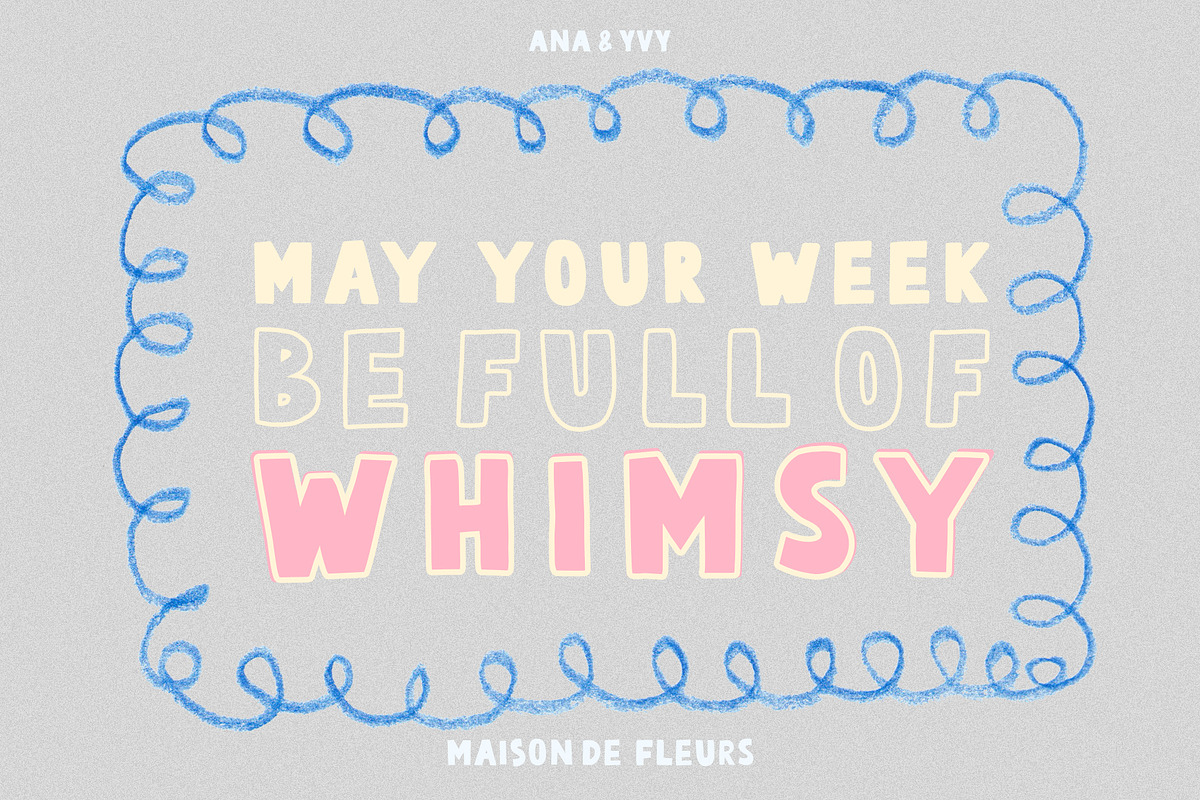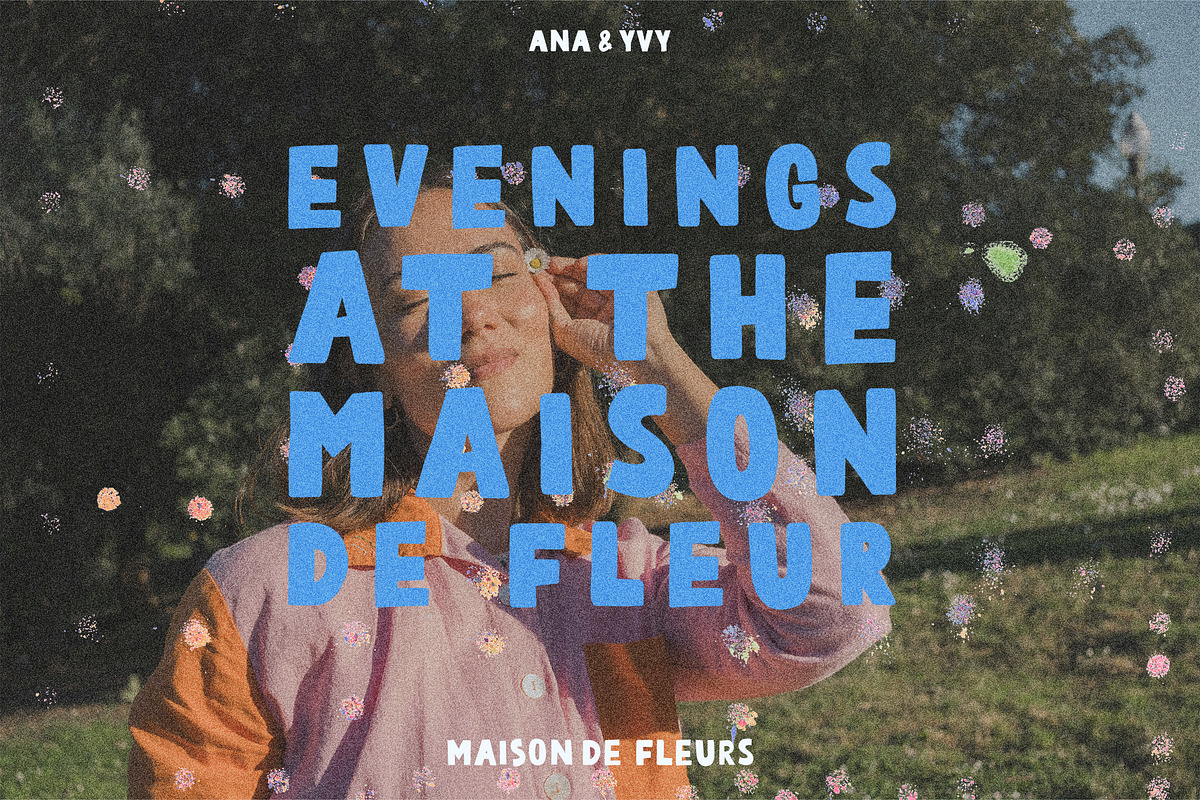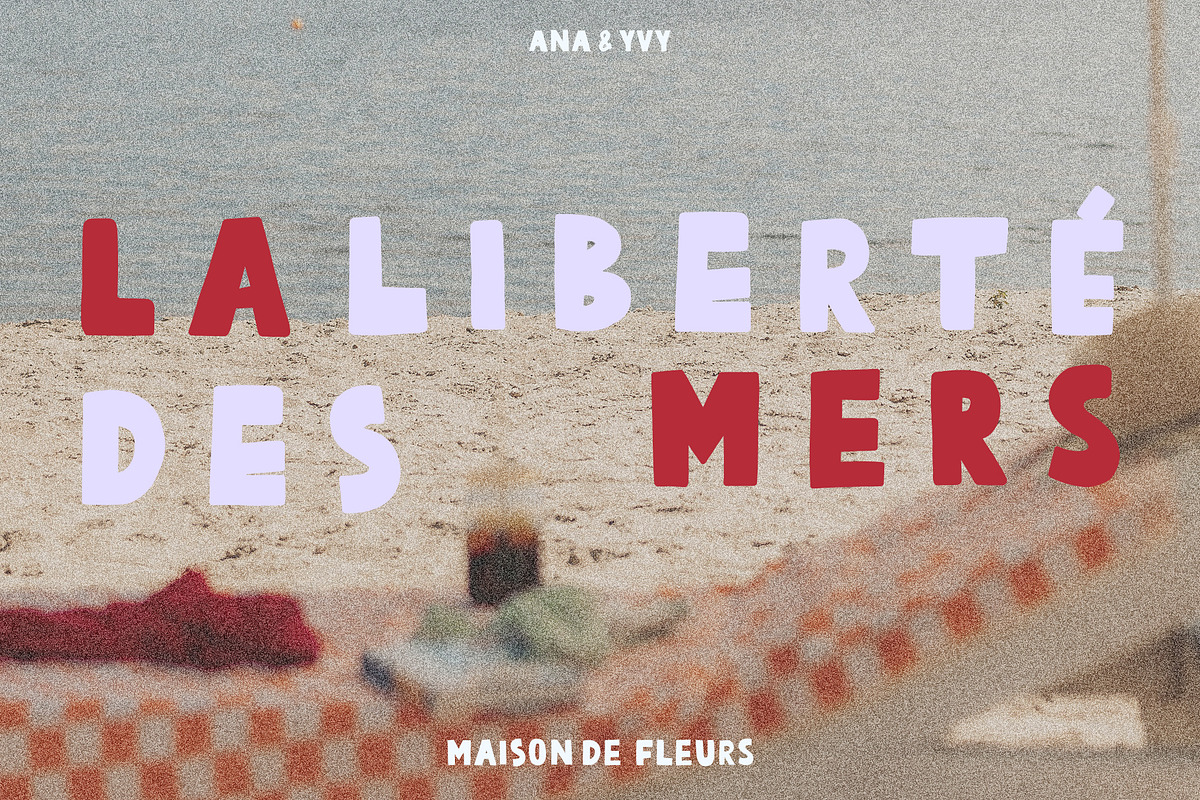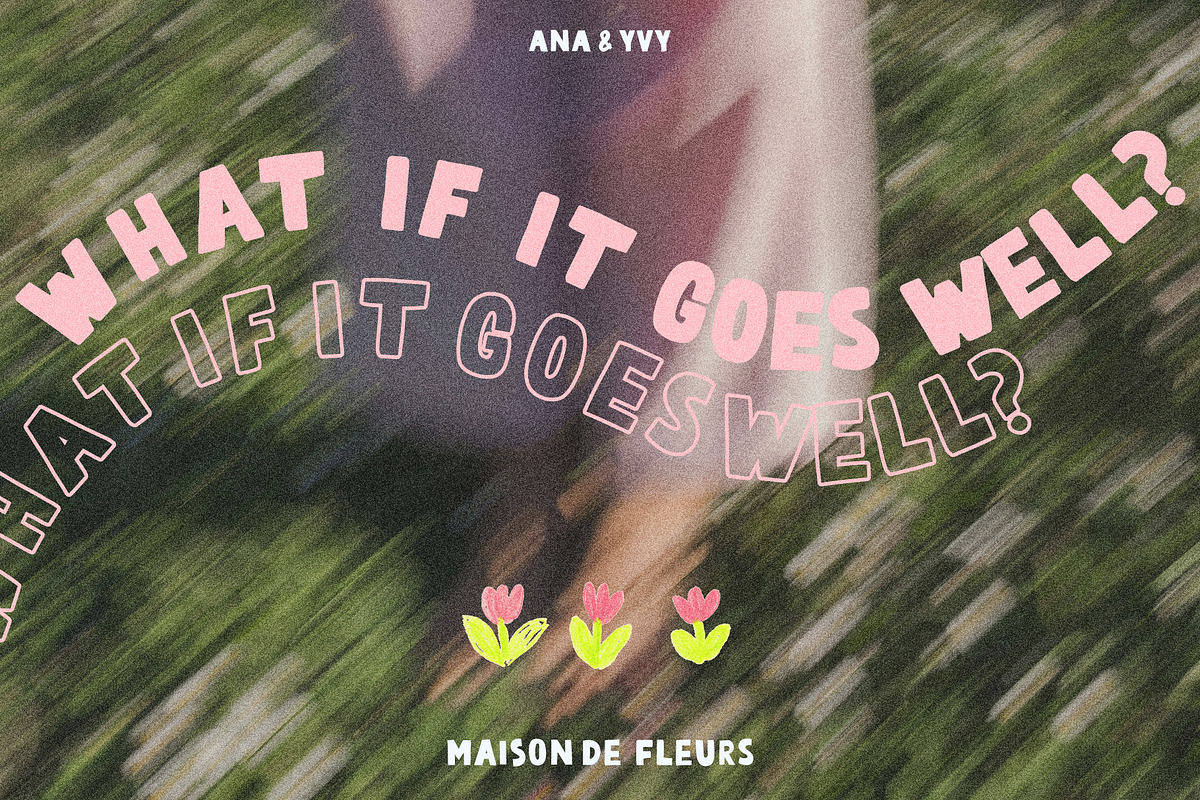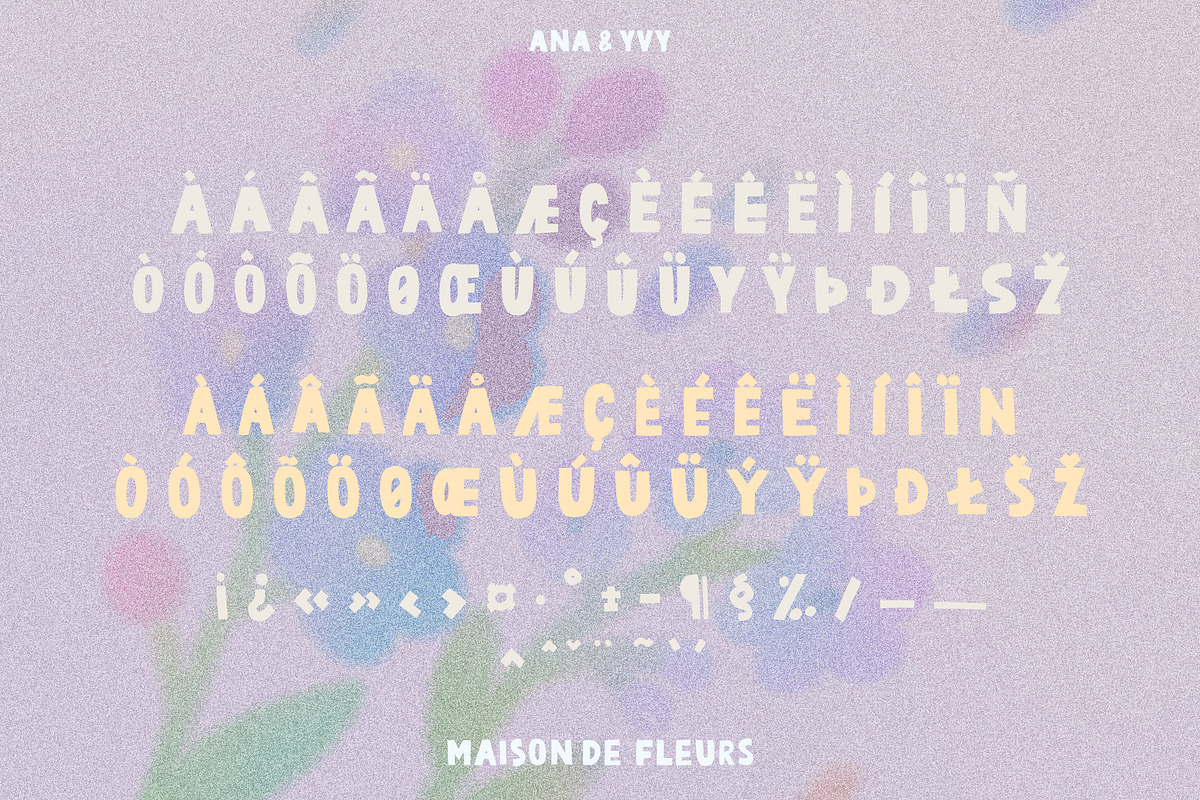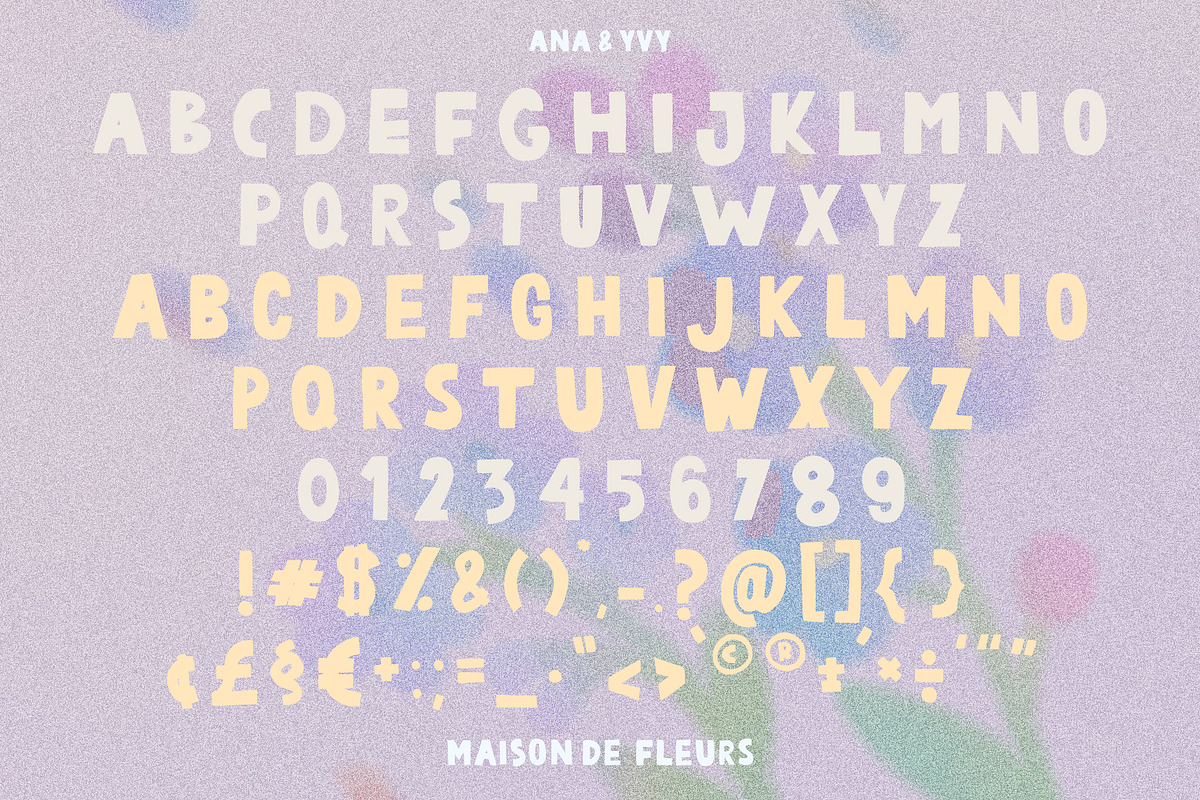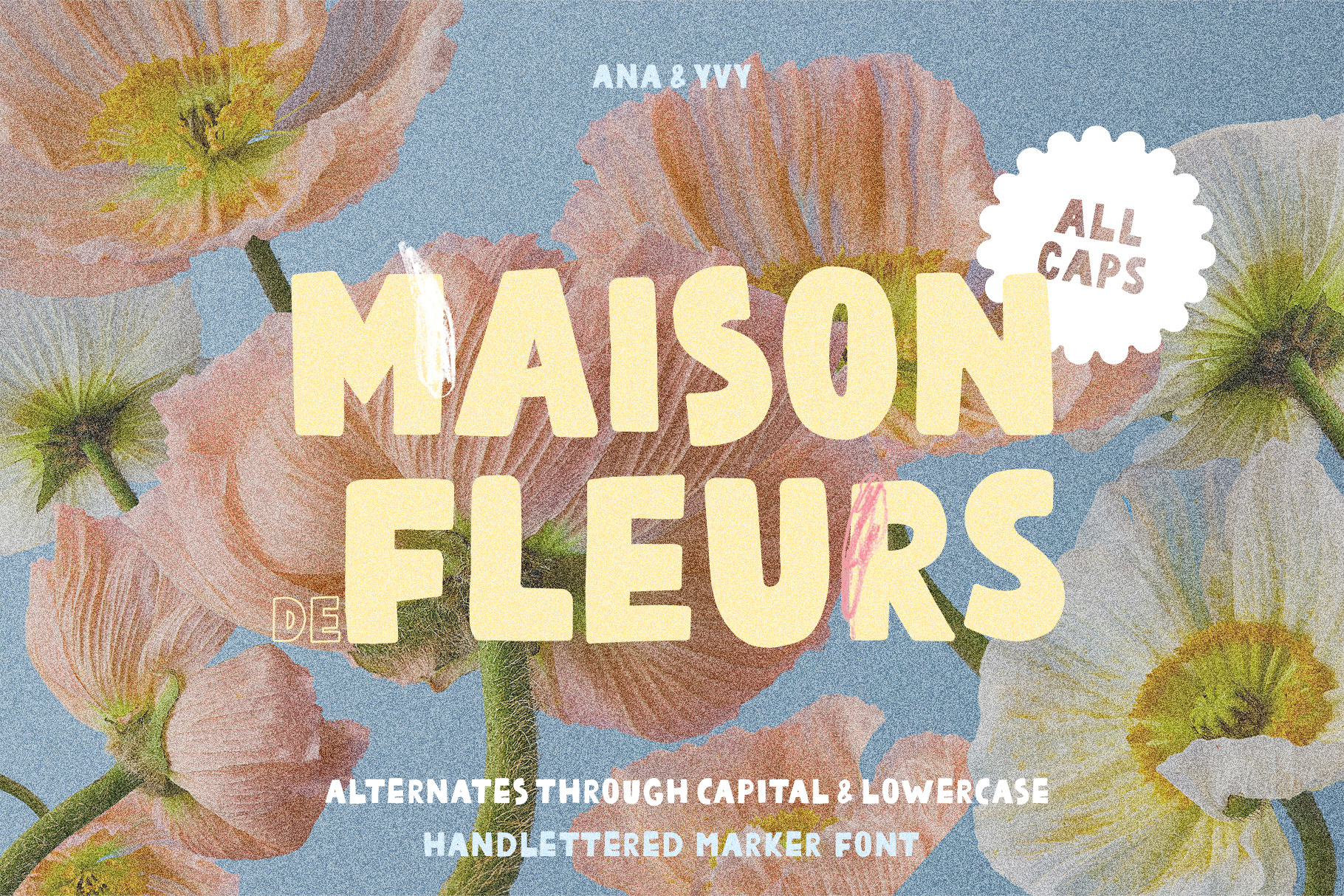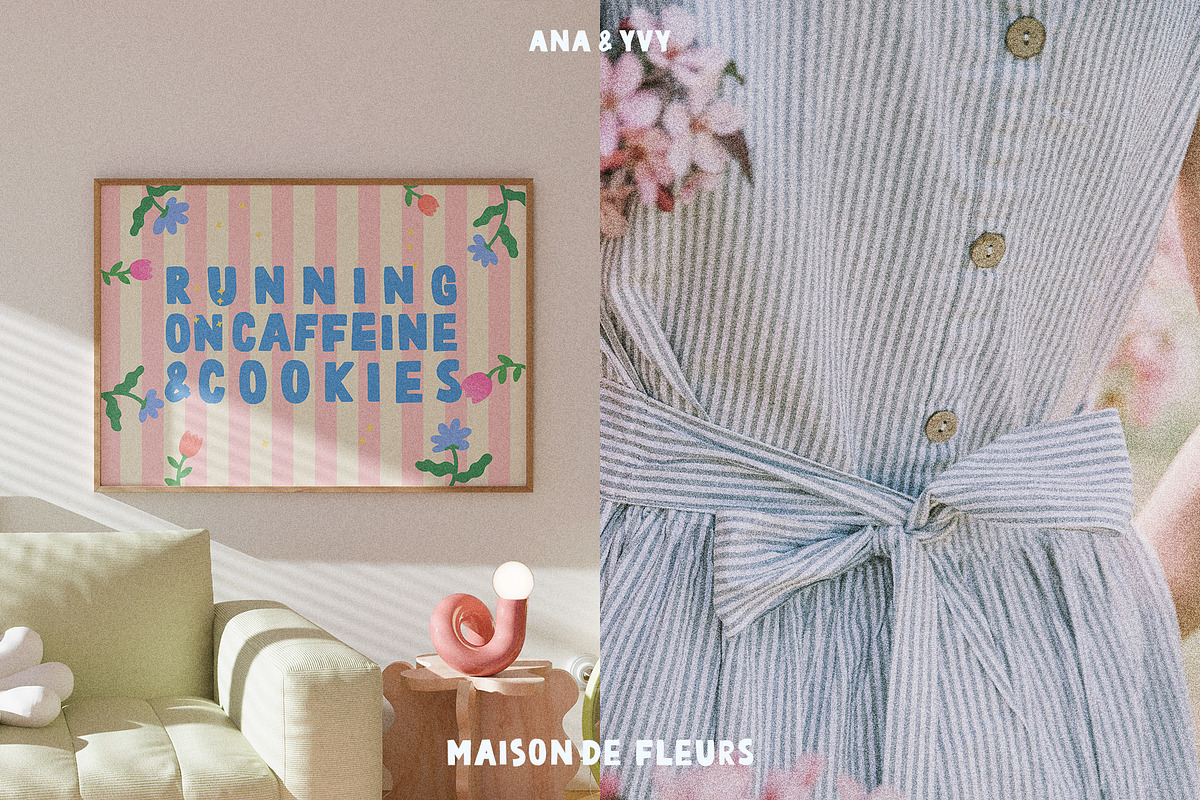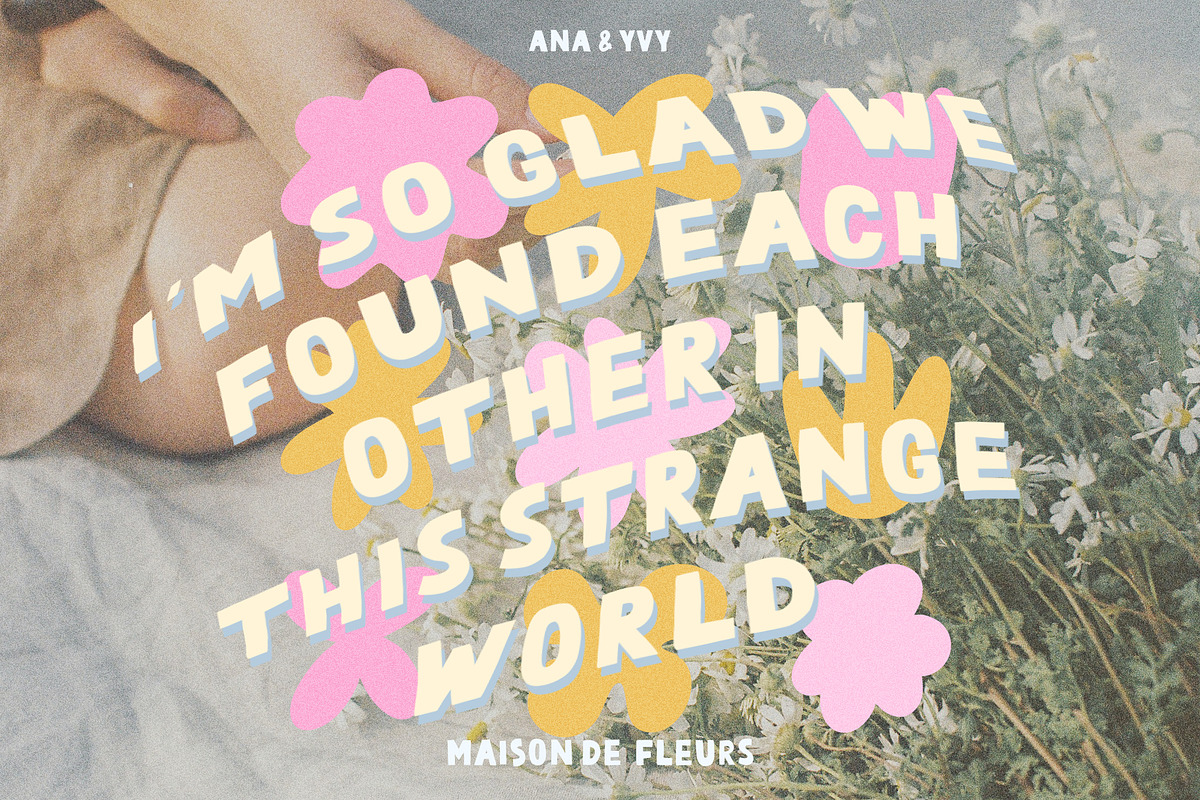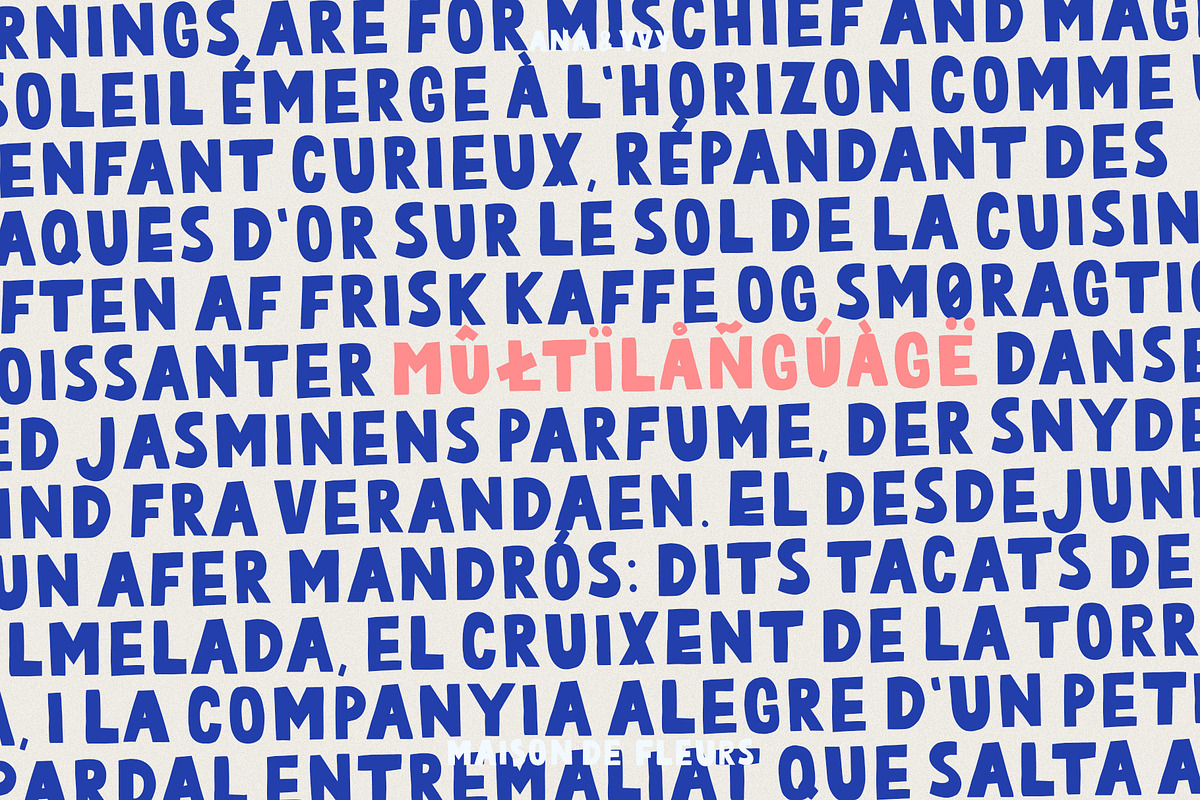
Maison de Fleurs | Marker Font Trio
MAISON DE FLEUR is a playful cutout marker font trio - a playful all caps cutout-style marker font. Lowercase letters are the alternative to Uppercase . Combine both to make your quote look even more handmade.
Great for greeting cards, quotes, social media posts, posters, playful branding, and so much more!
The font is all caps and does not contain alternates
Styles don't overlap exactly
Multilingual support as shown in preview
For alternate look combine lowercase and upper-case letters while writing words & phrases